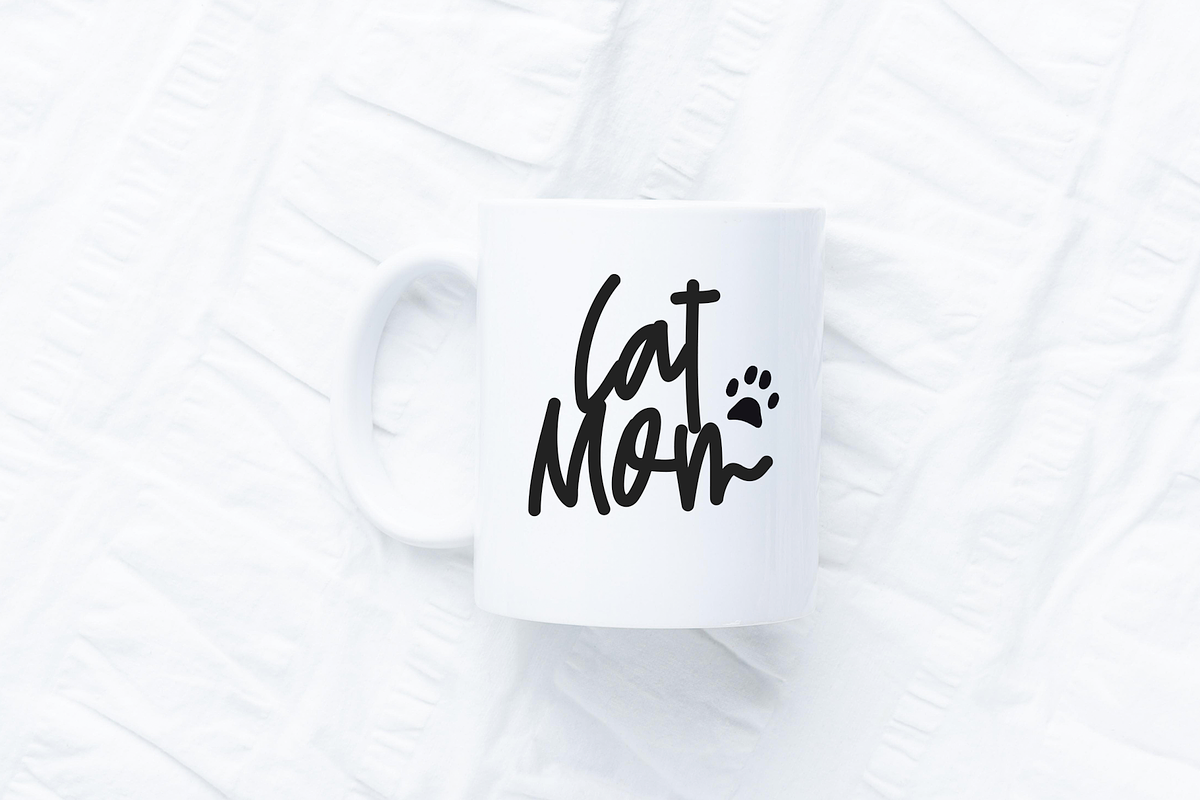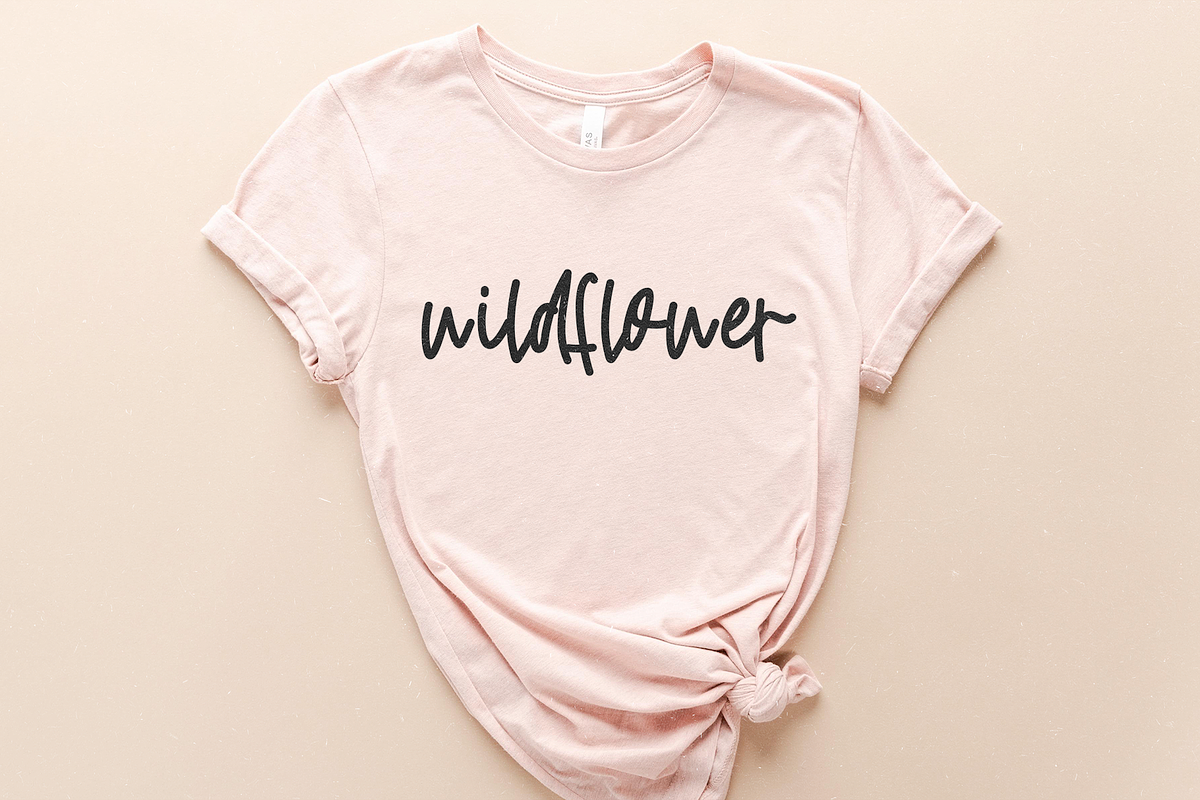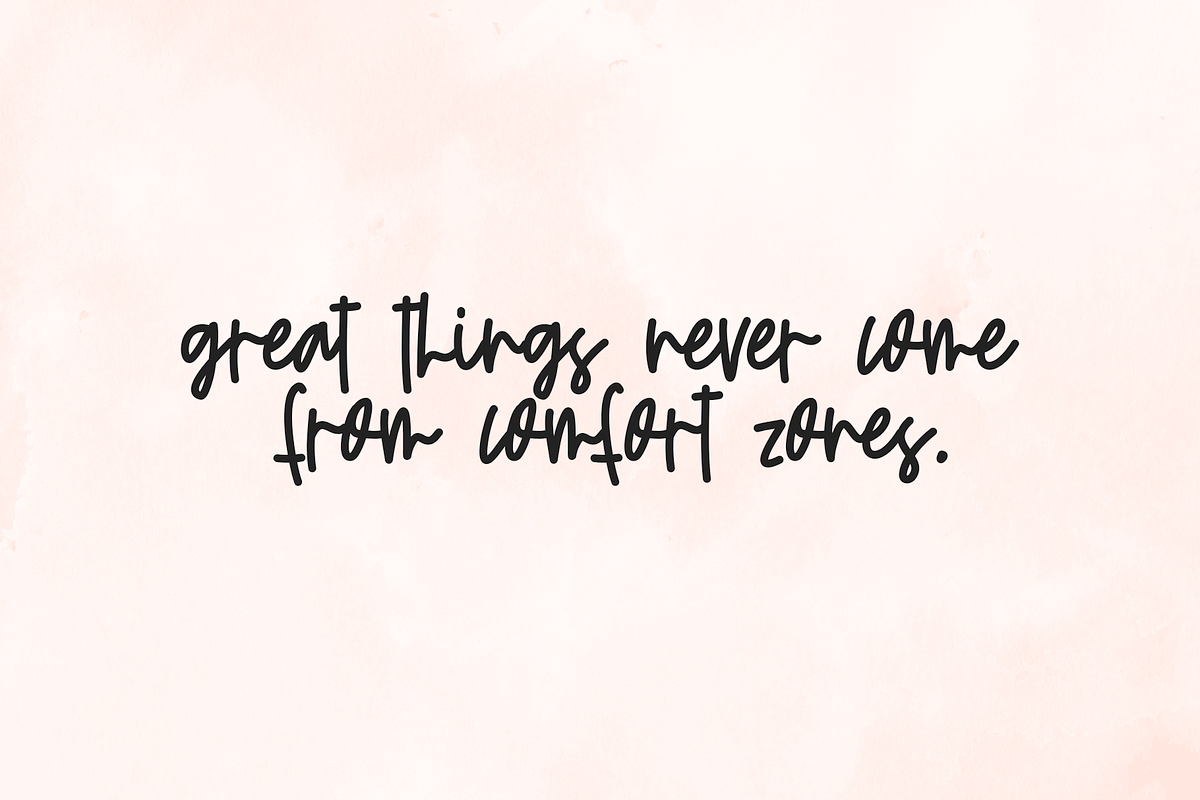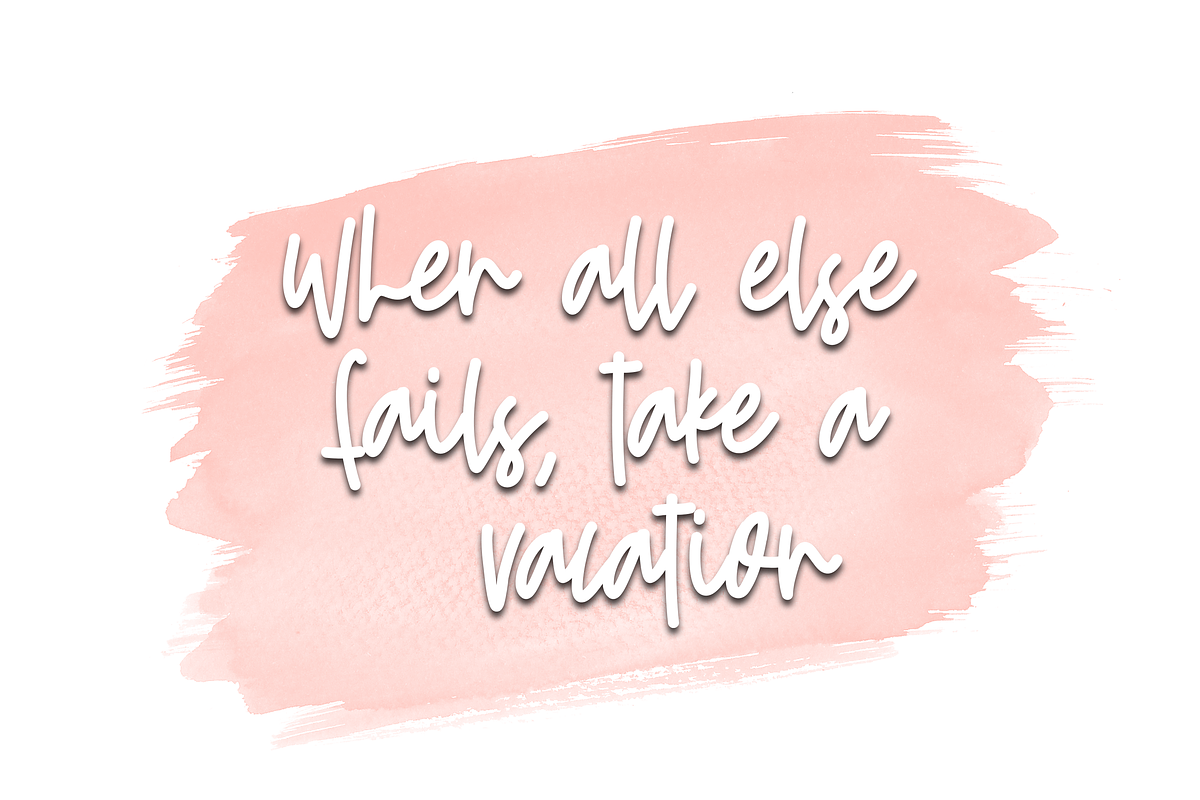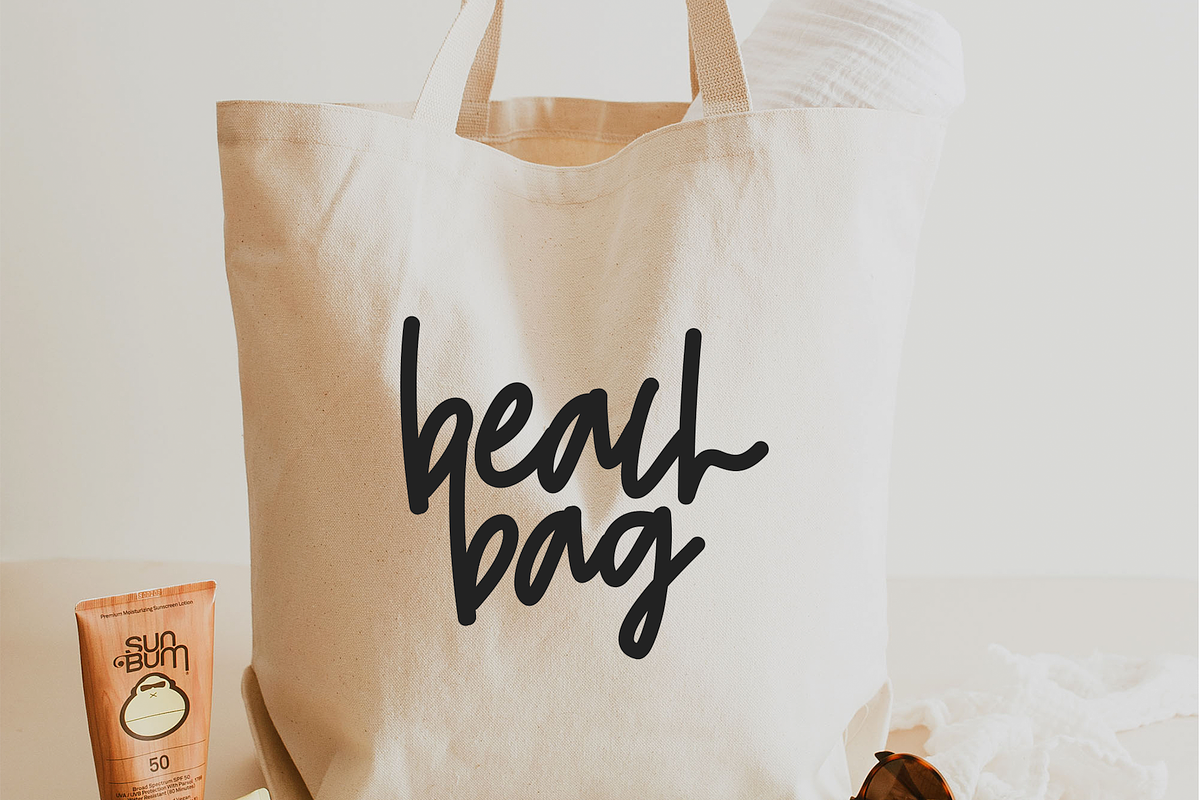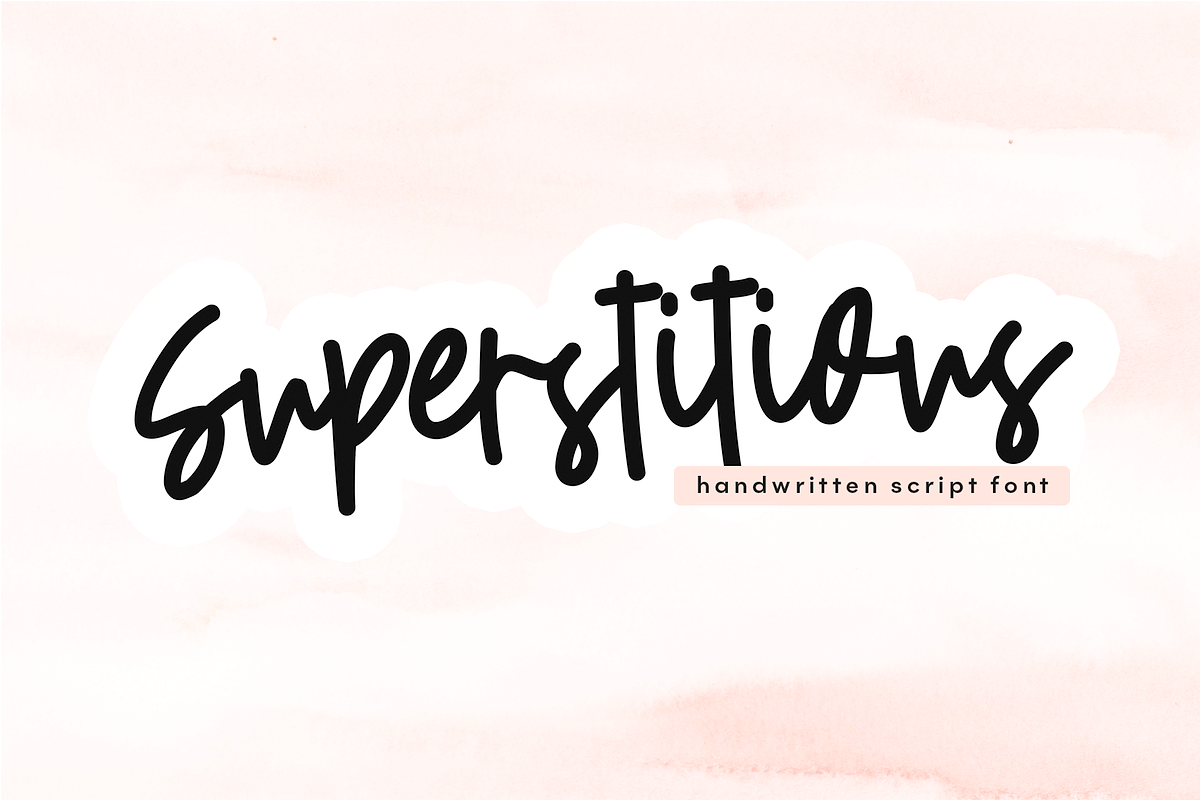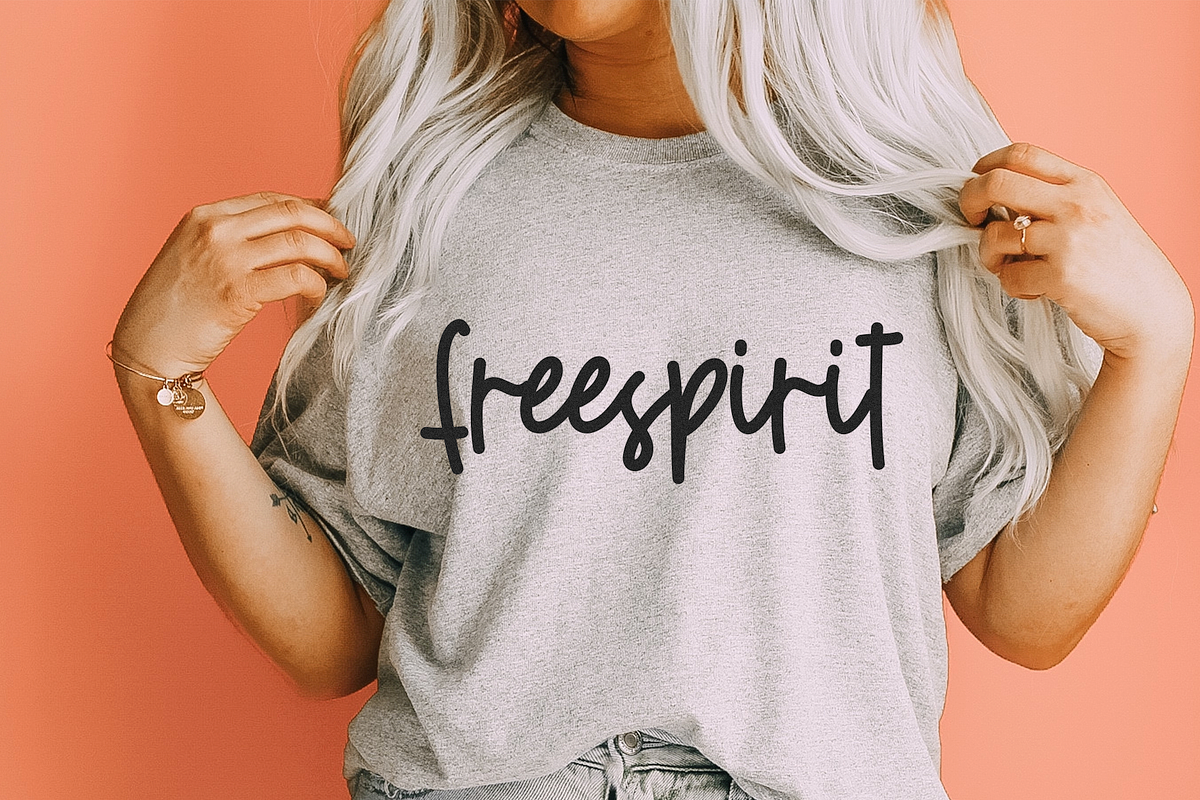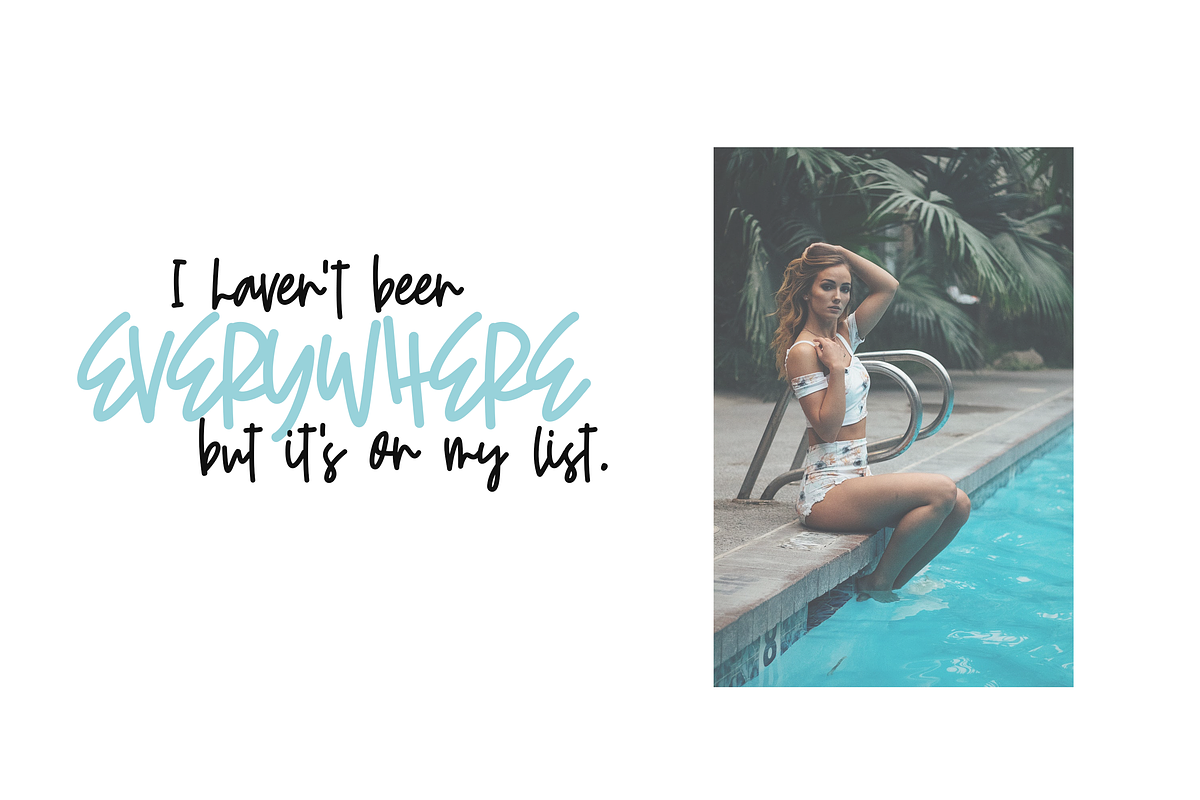
Superstitious - Bold Script Font
Superstitiousis a bold handwritten script font
This font is perfect for quotes, headings, blogs, logos, invitations and more!
Superstitious - Bold Script Font by KA Designs fits naturally into Branding, posters, packaging, typography.